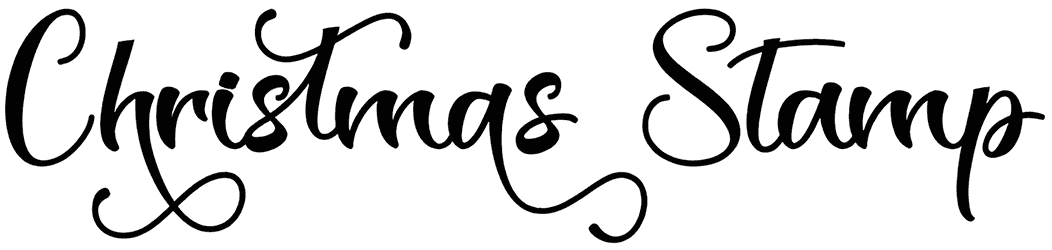
Christmas Stamp Font
Are you looking for a sophisticated script font for your next scheme? So we have got you covered by offering a Christmas Stamp. This handwritten font can meet a vast range of your design needs and give you the possibility to implement creative ideas.
You can use this stunning font on the cover of magazines, social media posts, invitations, and greeting cards by evoking a natural and human feeling, and then simply win the trust of the audience.